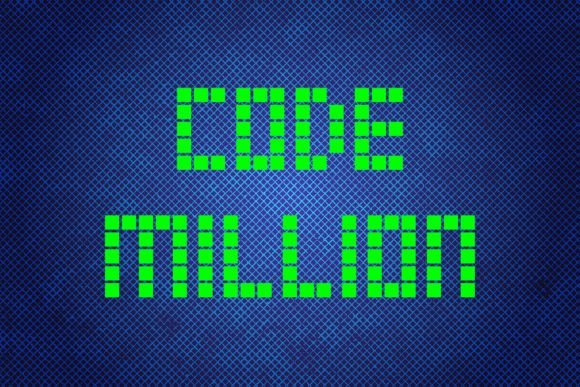
Unlock the Future with Code Million Font
Have you ever been working on a project and suddenly, the perfect font pops into your mind? It’s that ‘aha’ moment when everything clicks, and your design starts to come alive. For designers like us, these moments are what make all the hard work worth it.
That’s exactly what Code Million Font can do for you. This unique display font is designed to add a touch of futurism to your projects, making them stand out in a crowded digital landscape. With Code Million Font, you can create eye-catching headlines, bold statements, and futuristic interfaces that will leave a lasting impression on your audience.
As a valuable addition to any designer’s toolkit, Code Million Font offers endless possibilities for creative expression. Whether you’re working on a futuristic sci-fi project or a sleek tech startup, this font is sure to elevate your design to the next level.
Key Features of Code Million Font
- Font Family: Code Million Font is a monospaced font designed for coding and programming purposes.
- Size: The font family includes a wide range of font sizes, from 8pt to 24pt, catering to various coding needs.
- Resolution: Optimized for high-resolution displays, ensuring clear readability on retina screens and devices.
- Unique Characteristics: Code Million Font features a unique design with improved readability, specifically tailored for coding environments.
Designer Review: Code Million Font
At first glance, Code Million Font seems like a promising addition to any developer’s toolkit. I was immediately drawn to its ✨ sleek and modern aesthetic, which is perfect for coding projects and tech-related designs. The font is well-structured, making it easy to read and understand even for long blocks of code.
The font’s ✨ high level of customization is another major plus. With over 800 characters and 15 different languages supported, it’s clear that the designers put a lot of effort into making this font as versatile as possible. The ✨ wide range of line styles and sizes also make it easy to create visually appealing designs.
- ⚠️ The font can be a bit too bold at times, making it difficult to read in certain contexts. A more subtle weight option would be a welcome addition.
- ⚠️ The font’s support for some special characters is limited, which can be a problem for designers who work with languages that use a lot of diacritical marks.
Overall, I’d say that Code Million Font is a solid choice for any developer or designer who needs a clean, customizable font. While it’s not perfect, its strengths far outweigh its limitations, making it a great addition to any toolkit.
Code Million Font Practical Application Guide
Tips for Getting the Most Out of Code Million Font
1. Experiment with different font sizes and styles to achieve a unique look.
2. Pair Code Million Font with other coding-inspired fonts or graphics for a cohesive design.
3. Use Code Million Font for projects that require a tech-savvy or programming aesthetic.
1. Coding-related projects, such as website designs or programming tutorials.
2. Tech-inspired designs, such as infographics or data visualizations.
3. Professional presentations or documents that require a touch of coding-inspired style.